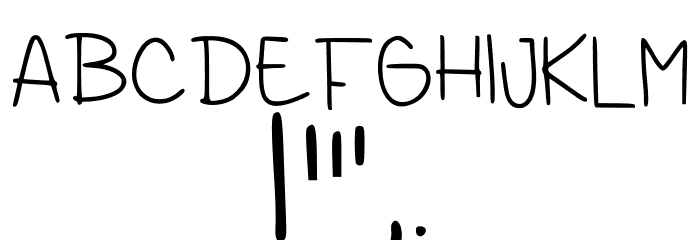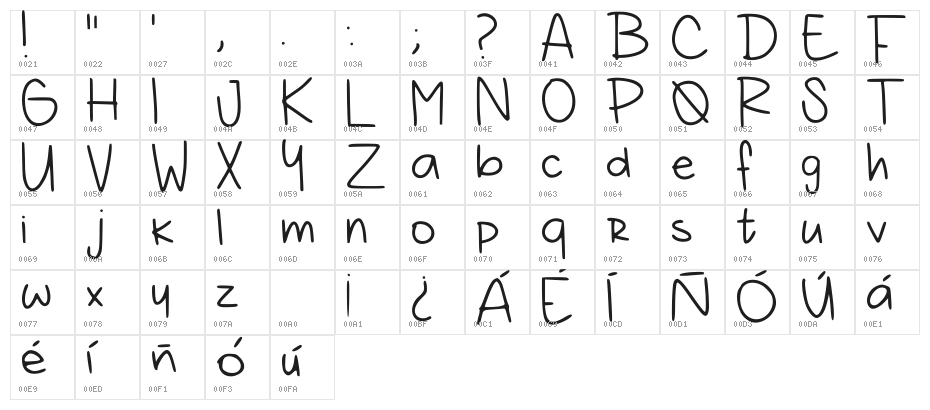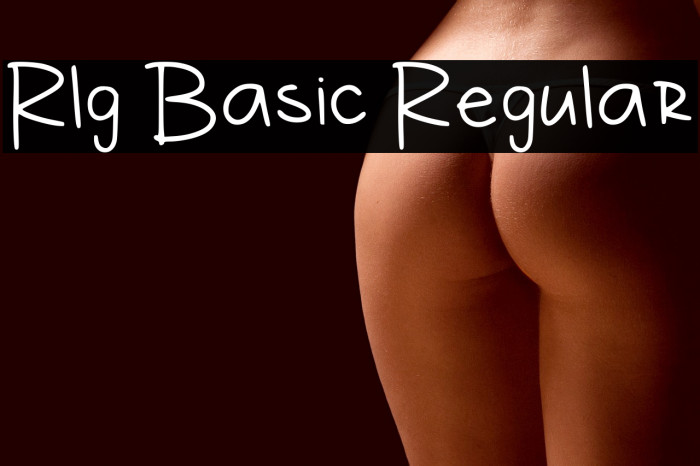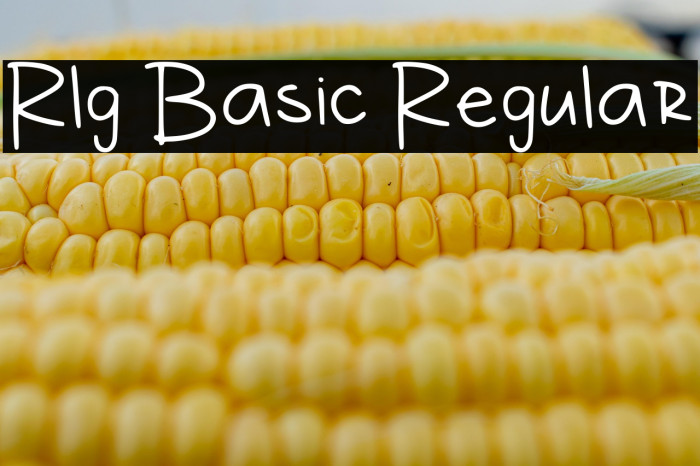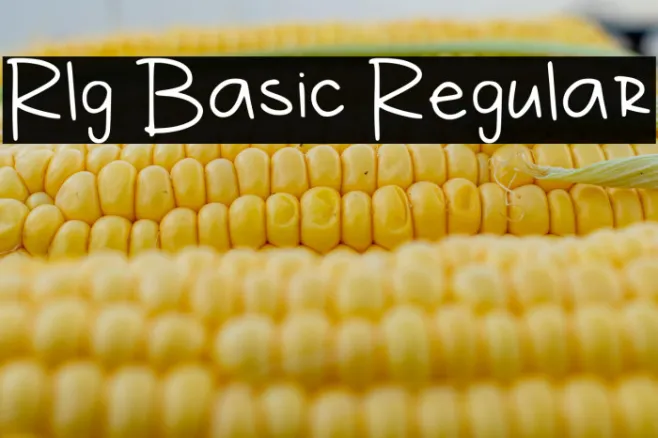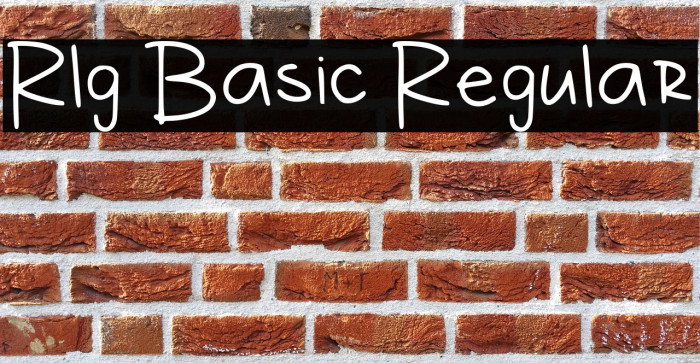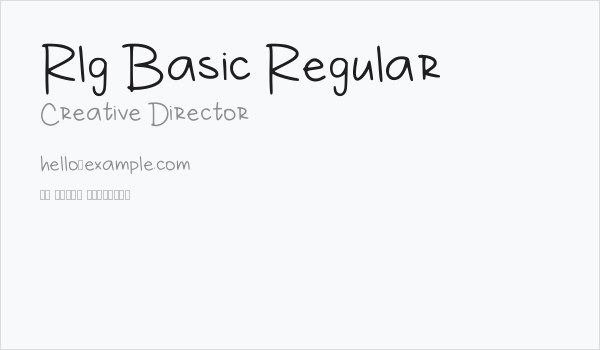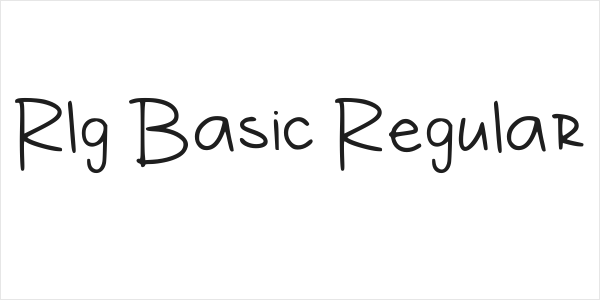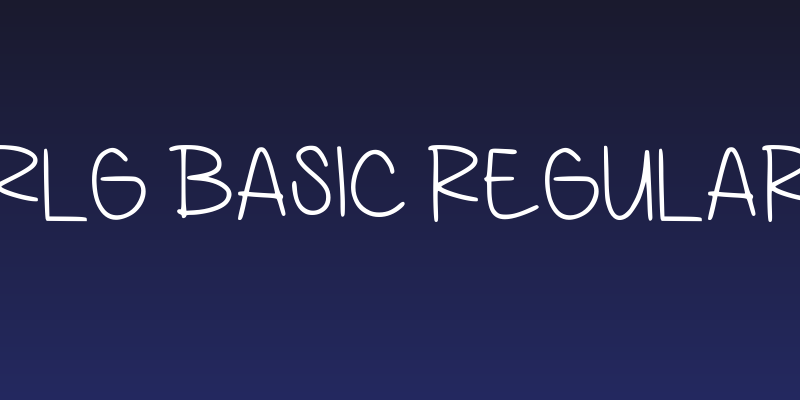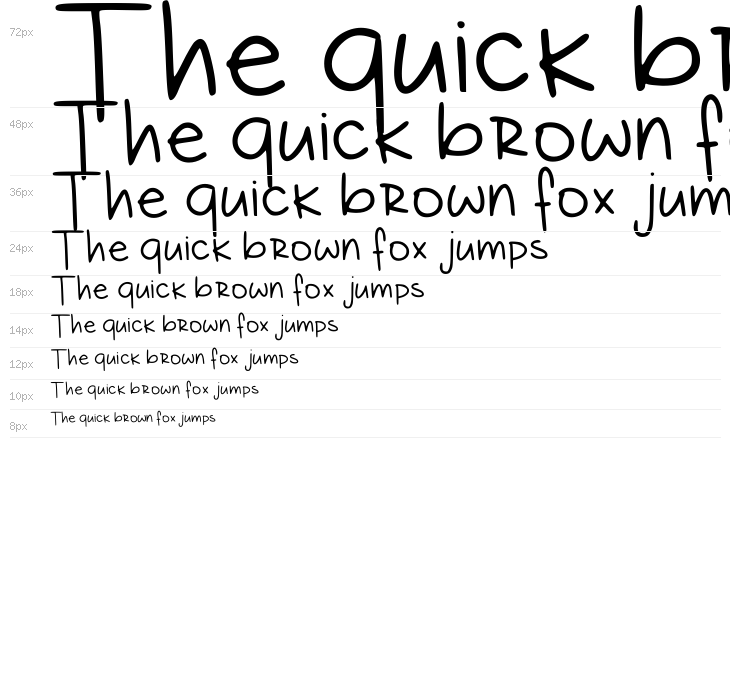
Rlg Basic Regular Font
Rlg Basic Regular Description
This font features a playful and casual handwritten style, characterized by its irregular and slightly whimsical letterforms. The uppercase letters are tall and narrow, with a consistent stroke width that gives them a clean and approachable look. The lowercase letters maintain a similar style, with rounded edges and a slightly bouncy baseline that adds to the font's charm. The numerals are simple and match the overall aesthetic, while the special characters are designed to blend seamlessly with the rest of the set. This font's informal and friendly appearance makes it suitable for a variety of creative projects.